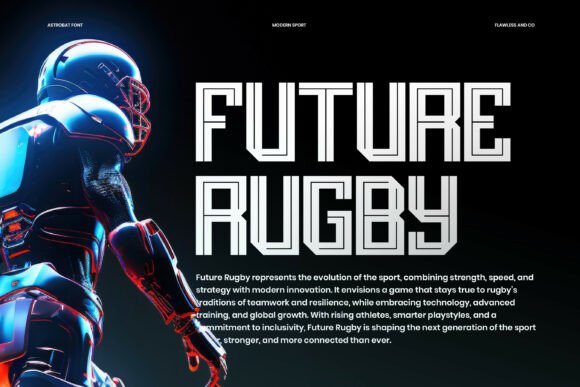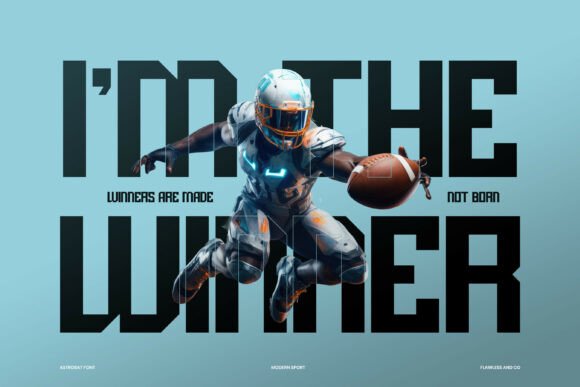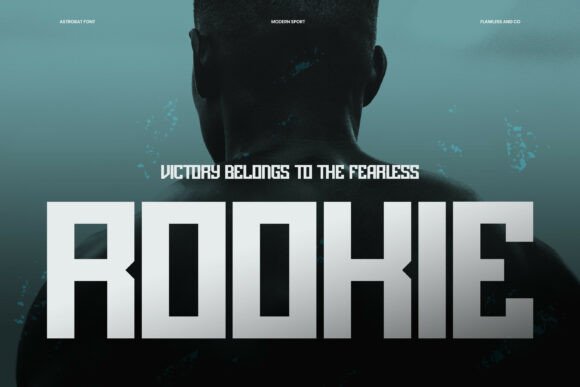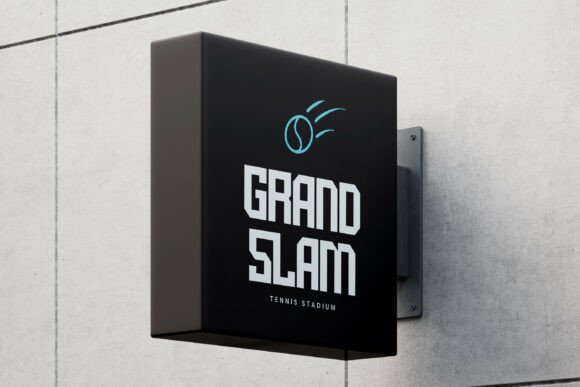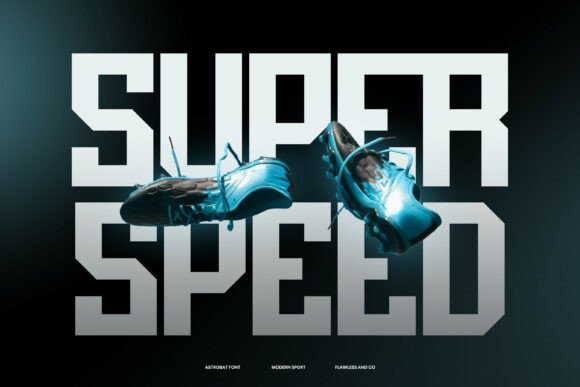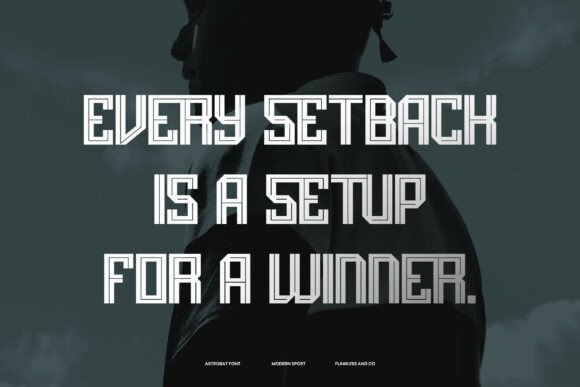
Astrobat Font: Elevate Your Sports Branding with a Bold and Modern Typeface
In the world of sports, typography plays a crucial role in conveying energy, intensity, and competition. A well-designed font can instantly elevate a brand’s visual identity, making it stand out in a crowded field. Introducing Astrobat, a bold and modern sport display typeface that’s engineered to capture the essence of athletic competition. With its sharp geometric cuts, powerful letterforms, and commanding presence, Astrobat is the perfect choice for designers and crafters looking to create high-impact visuals.
The Design Philosophy Behind Astrobat
Astrobat’s design is rooted in the idea of creating a font that’s both futuristic and athletic. The typeface boasts sharp geometric cuts that give it a sleek, modern look. The powerful letterforms are designed to convey a sense of speed and strength, making it ideal for sports branding, esports titles, posters, and dynamic headlines. The font’s commanding presence ensures that it grabs attention and leaves a lasting impression.
Key Features of Astrobat Font
- Bold and Modern Design: Astrobat’s bold and modern design makes it perfect for high-impact visuals. The font’s sleek lines and sharp cuts give it a cutting-edge look that’s sure to turn heads.
- Geometric Cuts: The font’s geometric cuts add a touch of sophistication and elegance, making it suitable for a wide range of design applications.
- Powerful Letterforms: Astrobat’s powerful letterforms are designed to convey a sense of speed and strength. The font’s letterforms are carefully crafted to ensure that they stand out in any design.
- Commanding Presence: Astrobat’s commanding presence ensures that it grabs attention and leaves a lasting impression. The font is designed to be assertive and confident, making it perfect for sports branding and esports titles.
Use Cases for Astrobat Font
Astrobat is a versatile font that can be used in a variety of design applications. Here are some use cases where Astrobat excels:
- Sports Branding: Astrobat is perfect for sports branding, including team logos, jerseys, and merchandise.
- Esports Titles: The font’s modern and bold design makes it ideal for esports titles, including tournament logos, team branding, and in-game visuals.
- Posters and Flyers: Astrobat’s commanding presence makes it perfect for posters and flyers, including event promotions, product launches, and advertising campaigns.
- Dynamic Headlines: The font’s bold and modern design makes it suitable for dynamic headlines, including magazine covers, billboards, and digital displays.
Why Choose Astrobat Font?
Astrobat offers a unique combination of style, versatility, and impact. Here are some reasons why designers and crafters should choose Astrobat:
- Unique Design: Astrobat’s bold and modern design sets it apart from other fonts. The font’s sharp geometric cuts and powerful letterforms make it a standout choice.
- Versatility: Astrobat is a versatile font that can be used in a variety of design applications, from sports branding to esports titles.
- Impact: The font’s commanding presence ensures that it grabs attention and leaves a lasting impression.
Astrobat is a bold and modern sport display typeface that’s engineered to capture the essence of athletic competition. With its sharp geometric cuts, powerful letterforms, and commanding presence, Astrobat delivers a sense of speed and strength that’s perfect for high-impact visuals. Whether used for team branding, esports titles, posters, or dynamic headlines, Astrobat brings a cutting-edge style that pushes sports typography into a new era. Designers and crafters looking to elevate their sports branding should consider Astrobat as their go-to font.